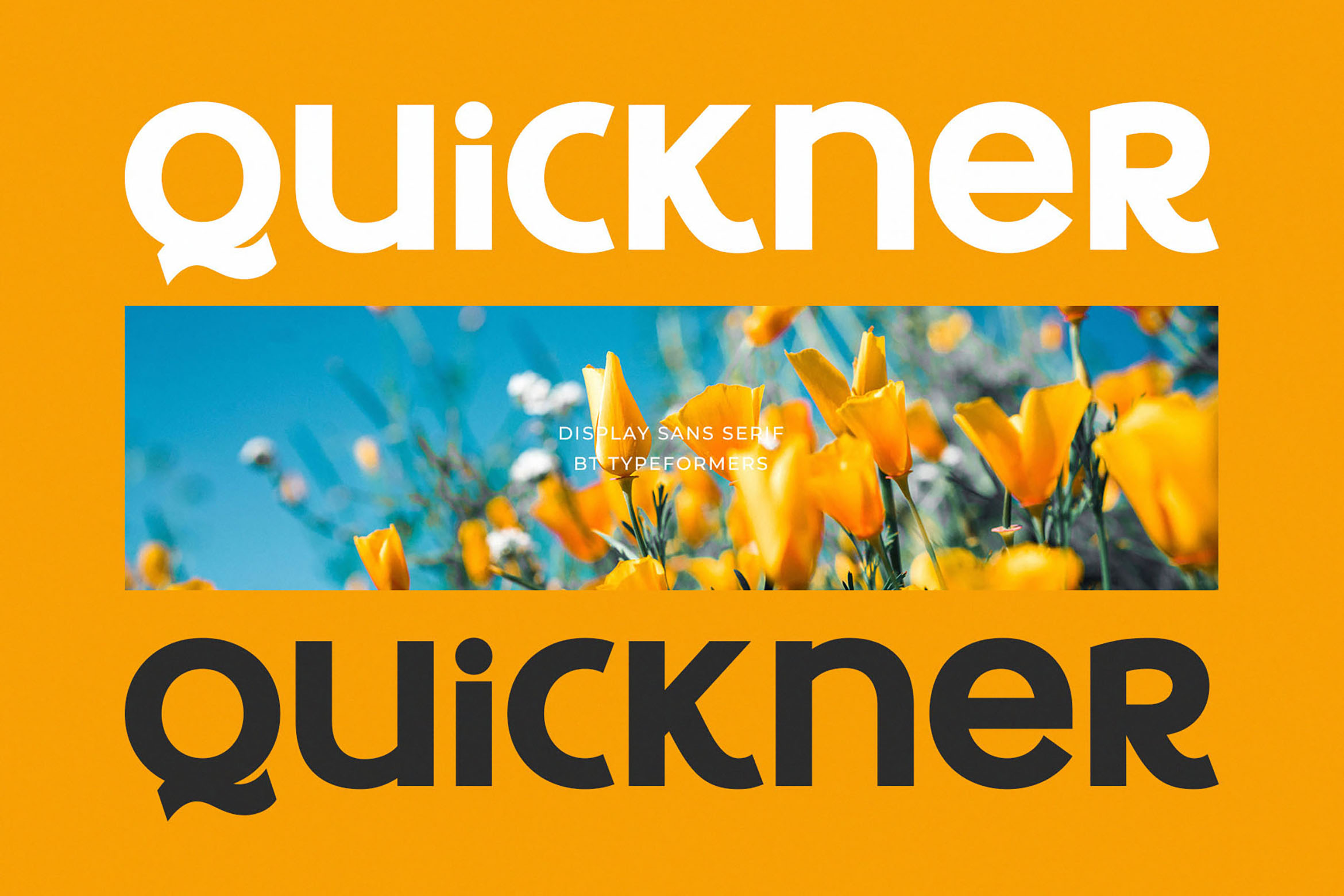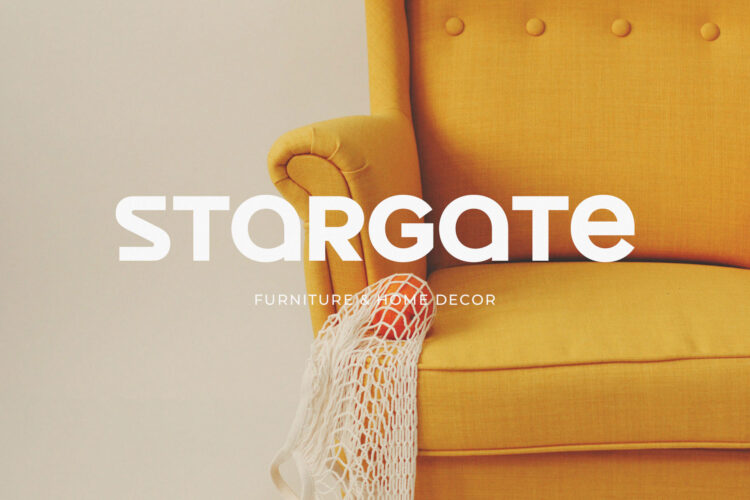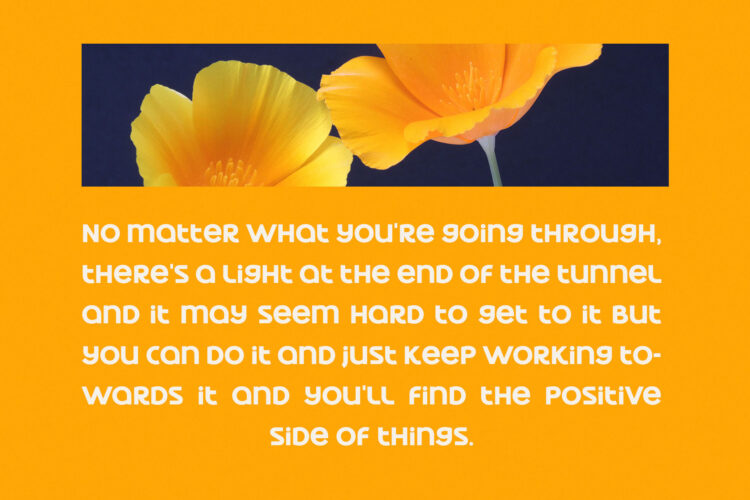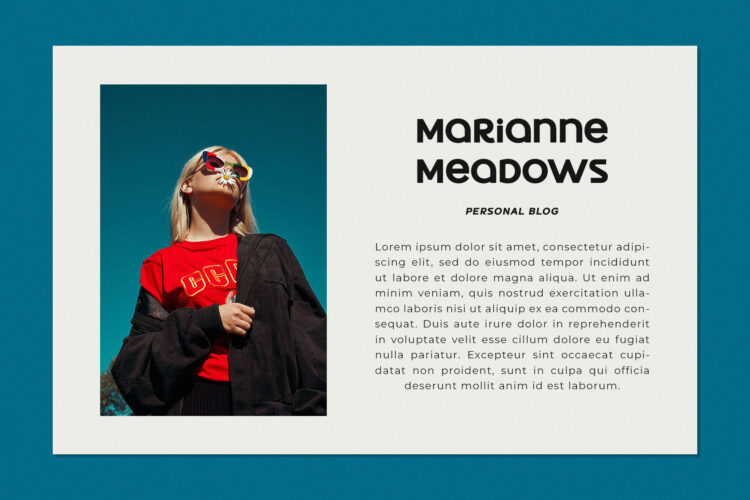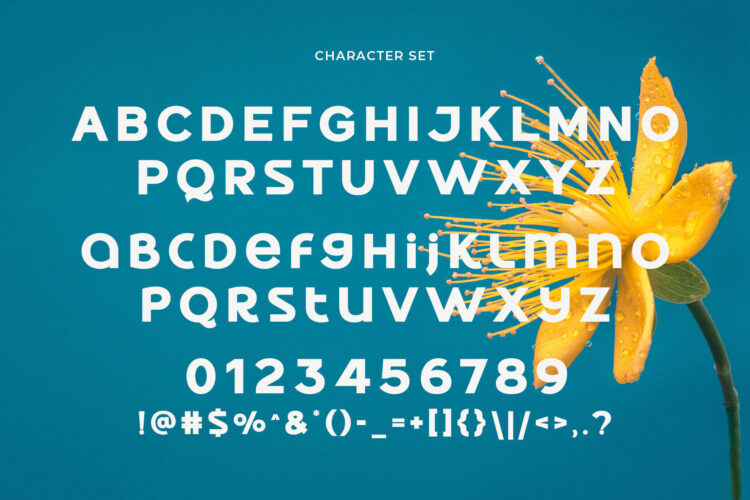
Introducing Quickner – Display Sans Serif.
Quickner is a modern and simple font, best used as a display for headings, logos, branding, magazines, product packaging and invitations.
Quickner – Display Sans Serif